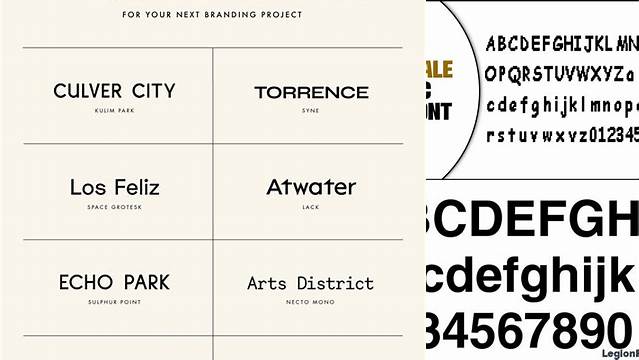
Free Sans Bold Fonts: Download & Use Guide
Hey guys! Are you on the hunt for free sans bold fonts that will make your designs pop? Look no further! In this article, we’ll dive deep into the world of sans-serif fonts, focusing on those bold styles that can add a touch of modern elegance and strong emphasis to your projects. Whether you’re a seasoned designer or just starting, understanding the power of a well-chosen font is crucial. Let's explore why sans bold fonts are so popular, where you can find them, and how to use them effectively in your designs.
What Makes Sans Bold Fonts So Popular?
Sans bold fonts have become a staple in the design world for several compelling reasons. First and foremost, their clean and minimalist appearance makes them incredibly versatile. Unlike serif fonts, which have small decorative strokes (serifs) at the end of the letters, sans-serif fonts boast a more straightforward, unadorned look. This simplicity lends itself well to both digital and print media, ensuring readability across various platforms and devices. In the realm of user interface (UI) design, sans bold fonts shine as they provide clarity and legibility even at smaller sizes. This is paramount for creating user-friendly websites and applications where content needs to be easily scannable. The bold weight further enhances this readability, making key elements like headings, call-to-actions, and important information stand out. Think about the websites and apps you use daily; chances are, many of them utilize sans bold fonts for their headers and navigation menus. In the branding context, sans bold fonts communicate modernity, confidence, and strength. They’re a fantastic choice for companies aiming to project an image of innovation and straightforwardness. Consider brands like Google, Spotify, and Netflix – all of which employ sans-serif fonts in their logos and branding materials. The bold variations of these fonts add a level of emphasis and gravitas, helping these brands make a lasting impression. Moreover, sans bold fonts are incredibly effective in marketing materials. Whether it's a poster, brochure, or social media graphic, the bold weight commands attention and ensures your message is seen. Imagine a promotional banner with a headline set in a thin, delicate font versus one set in a bold sans-serif; the latter is much more likely to grab the viewer's eye. The versatility of sans bold fonts extends to their adaptability across different design styles. They pair well with a wide range of other fonts, including both serif and script styles, making them a valuable asset in any designer's toolkit. You can create dynamic contrasts by combining a bold sans-serif heading with a lighter weight serif body text, or you can achieve a harmonious balance by using different weights and sizes of the same sans-serif family. Ultimately, the popularity of sans bold fonts stems from their blend of readability, versatility, and contemporary appeal. They’re a go-to choice for designers looking to create impactful and visually pleasing designs across various mediums.
How to Effectively Use Sans Bold Fonts in Your Designs
Okay, so you've got your hands on some awesome free sans bold fonts – that’s fantastic! But the next step is crucial: how do you actually use them effectively in your designs? Using a bold font might seem straightforward, but mastering its application can elevate your work from good to great. Let’s dive into some practical tips and best practices. First and foremost, consider the hierarchy of your design. Sans bold fonts are excellent for headlines and titles because they immediately grab attention. Use them to emphasize key messages and guide the viewer's eye through your content. Think of your design as a map, and the bold fonts are your signposts, directing people where to look first. For example, if you're designing a website, your main heading should be in a bold sans-serif font to make a strong first impression. Subheadings can also benefit from a bold treatment, albeit perhaps in a slightly smaller size or different weight within the same font family. This creates a clear visual hierarchy, making your content easy to digest. When it comes to body text, however, moderation is key. While a bold font can work in short bursts, using it for long paragraphs can tire the reader's eyes. Instead, opt for a regular or light weight sans-serif font for the main body of your text. This ensures readability and prevents your design from feeling too heavy or overwhelming. You can still use bold sparingly within the body text to highlight important keywords or phrases, but keep it to a minimum. Another crucial aspect is font pairing. The fonts you choose to use together can make or break your design. Sans bold fonts are versatile, but they work best when paired thoughtfully. A classic approach is to combine a bold sans-serif for headings with a lighter weight serif font for body text. This creates a pleasing contrast and adds a touch of elegance to your design. Alternatively, you can pair different weights and styles within the same sans-serif family for a cohesive and modern look. For instance, you might use a bold sans-serif for the heading, a regular sans-serif for the body text, and an italic sans-serif for captions or callouts. Don’t be afraid to experiment with different combinations, but always prioritize readability and visual harmony. Spacing and alignment play a significant role in how your bold sans-serif fonts are perceived. Pay attention to letter spacing (tracking), line height (leading), and the overall alignment of your text. Too little spacing can make your text feel cramped and difficult to read, while too much spacing can make it appear disjointed. Experiment with different settings until you achieve a balance that feels comfortable and visually appealing. Proper alignment is equally important. Whether you choose left, center, or right alignment, ensure that your text is consistently aligned throughout your design. In the digital realm, consider the responsiveness of your fonts. As screens come in various sizes, your font choices should adapt seamlessly. Many modern sans-serif fonts are designed with responsiveness in mind, meaning they maintain their legibility and visual appeal across different devices. When designing for the web, use relative units like em or rem for font sizes, rather than fixed units like pixels. This allows your fonts to scale proportionally with the screen size. Finally, remember the context of your design. The font you choose should align with the overall tone and message you're trying to convey. A bold sans-serif font can project confidence, modernity, and strength, making it a great choice for corporate websites, marketing materials, and branding projects. However, for more delicate or whimsical designs, you might opt for a different style or weight. By considering these factors, you can harness the power of sans bold fonts to create designs that are not only visually striking but also highly effective in communicating your message.
Conclusion: Embrace the Power of Free Sans Bold Fonts
So, there you have it, guys! A comprehensive guide to the world of free sans bold fonts. From their versatility and popularity to where you can find them and how to use them effectively, we've covered all the bases. These fonts are a powerful tool in any designer's arsenal, offering a blend of clarity, modernity, and impact that can elevate your projects to the next level. Remember, the key to successful design lies in understanding the nuances of typography and how different fonts can influence the overall look and feel of your work. Sans bold fonts, with their clean lines and strong presence, are a fantastic choice for a wide range of applications, from branding and marketing to web design and beyond. By exploring the resources we've shared, you can build a diverse collection of free sans bold fonts that will serve you well in your creative endeavors. Don't be afraid to experiment with different styles and weights, and always consider the context of your design when making font choices. Whether you're crafting a bold headline, designing a user-friendly interface, or creating eye-catching marketing materials, sans bold fonts can help you make a lasting impression. So go ahead, embrace the power of free sans bold fonts, and let your creativity shine!